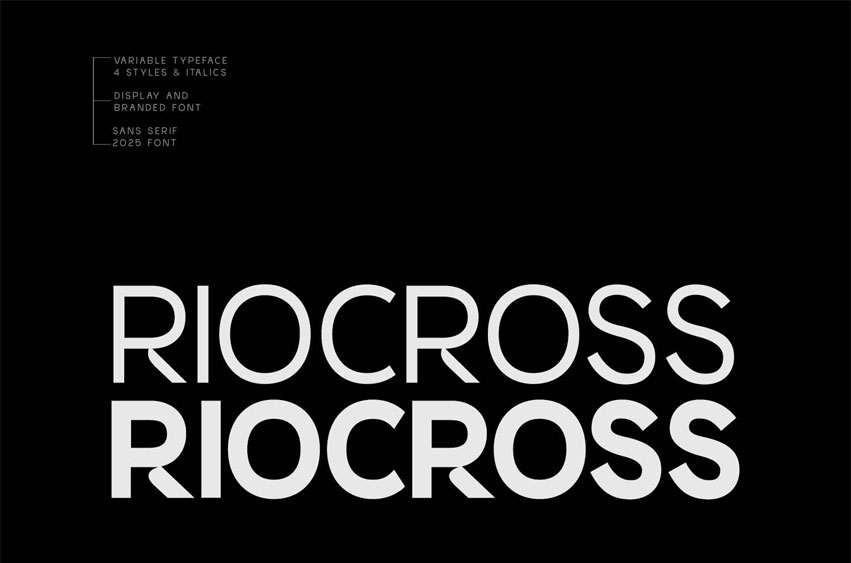
Riocross Font is a Unique, Modern, Elegant Typeface with Web-fonts. This font works great in large and small sizes. The Riocross font would be perfect for branding, logos, headlines, and captions & simply as a stylish text overlay to any background image. Strong capitals and a smooth, open lowercase are effective in a variety of applications.
The various weights allow you to experiment with a wide range of applications. It’s created to make an impression without sacrificing its beauty and readability.
** The Typeface includes 4 Weights – Regular, Medium, SemiBold, & Bold Variants are Included. **